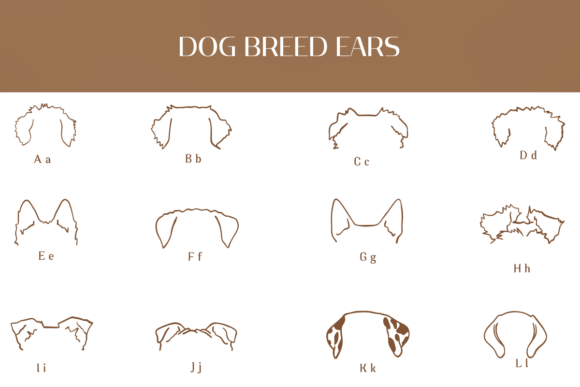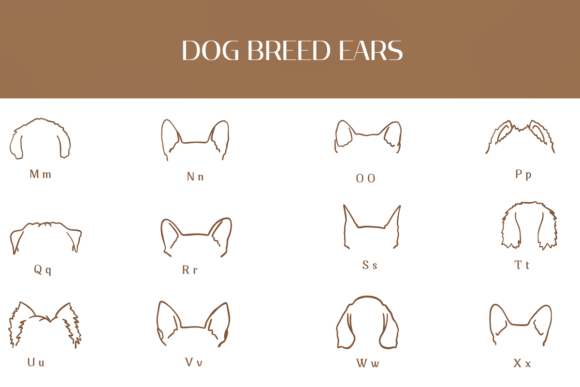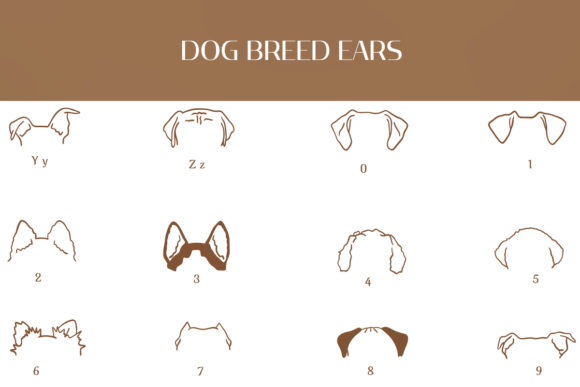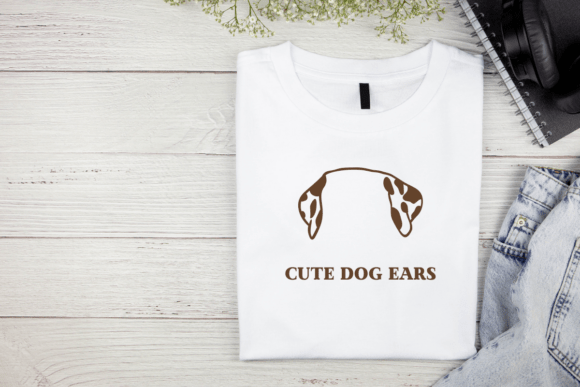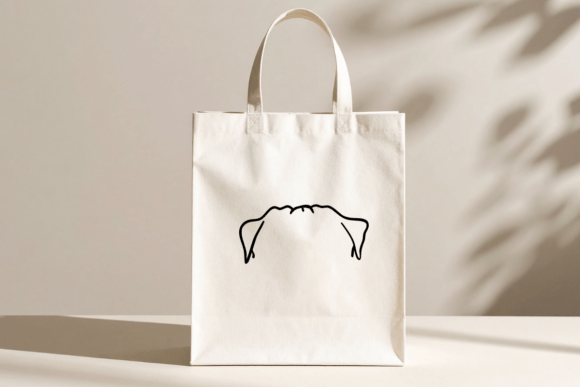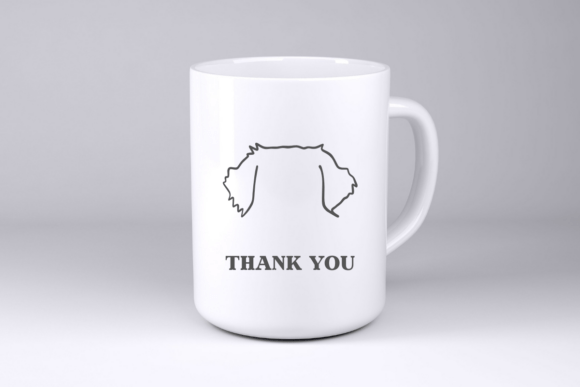
Unleash Creativity with Dog Breed Ears Font: A Dingbats Delight for Designers and Crafters
Are you a designer, crafter, or DIY enthusiast looking for a unique and playful font to add a personal touch to your projects? Look no further than the Dog Breed Ears font, a delightful dingbats font that’s sure to unleash your creativity. In this article, we’ll explore the features and uses of Dog Breed Ears, and how it can elevate your designs, from notes and diaries to greeting cards, banners, and more.
What is Dog Breed Ears Font?
Dog Breed Ears is a charming dingbats font that features adorable illustrations of various dog breeds’ ears. The font is designed to add a touch of whimsy and fun to your projects, making it perfect for a wide range of applications. With Dog Breed Ears, you can add a personal and creative element to your designs, setting them apart from the ordinary.
Uses of Dog Breed Ears Font
One of the best things about Dog Breed Ears is its versatility. This font can be used for a variety of projects, including:
- Note-taking and journaling: Add a playful touch to your notes and diary entries with Dog Breed Ears. The font’s illustrations will make your journaling experience more enjoyable and fun.
- Greeting cards and invitations: Create one-of-a-kind greeting cards, invitations, and party decor with Dog Breed Ears. The font’s unique illustrations will make your cards and invites stand out.
- Banners and signs: Use Dog Breed Ears to create eye-catching banners and signs for parties, events, or promotions.
- Social media posts: Add a touch of personality to your social media posts with Dog Breed Ears. The font’s illustrations will make your posts more engaging and shareable.
- Mugs, cards, shirts, and more: Dog Breed Ears is perfect for designing custom merchandise, such as mugs, cards, shirts, and other products.
Design Possibilities with Dog Breed Ears
With Dog Breed Ears, the design possibilities are endless. Here are a few ideas to get you started:
- Create a dog-themed party: Use Dog Breed Ears to design invitations, banners, and party decor for a dog-themed party.
- Design a custom journal: Use Dog Breed Ears to create a one-of-a-kind journal or diary with adorable illustrations.
- Make a set of greeting cards: Design a set of greeting cards using Dog Breed Ears, each featuring a different dog breed’s ears.
Why Choose Dog Breed Ears Font?
So, why choose Dog Breed Ears font for your projects? Here are a few reasons:
- Unique and playful: Dog Breed Ears is a unique and playful font that will add a touch of personality to your designs.
- Versatile: The font can be used for a wide range of projects, from notes and diaries to greeting cards and banners.
- Easy to use: Dog Breed Ears is a dingbats font, making it easy to use and navigate.
In conclusion, Dog Breed Ears font is a delightful dingbats font that’s perfect for designers, crafters, and DIY enthusiasts. With its unique and playful illustrations, Dog Breed Ears is sure to add a touch of personality to your projects. Whether you’re creating notes, greeting cards, banners, or merchandise, Dog Breed Ears is a versatile font that will help you unleash your creativity. So, why not give it a try and see what amazing designs you can create?